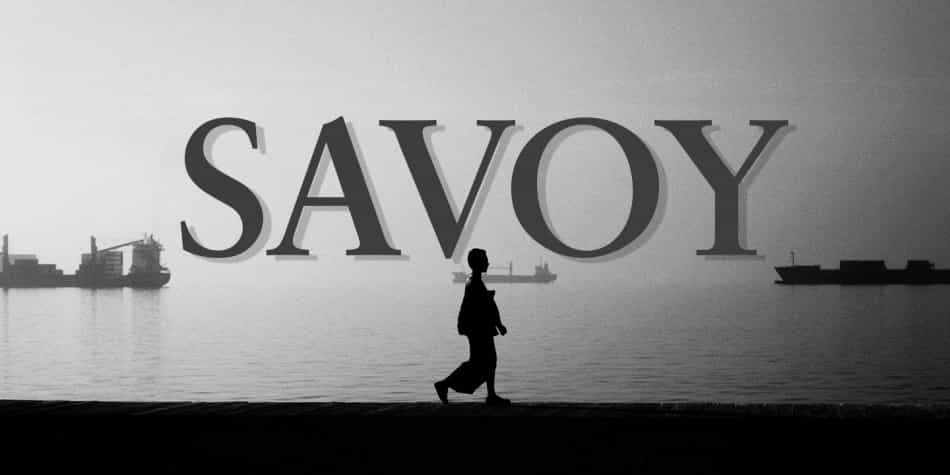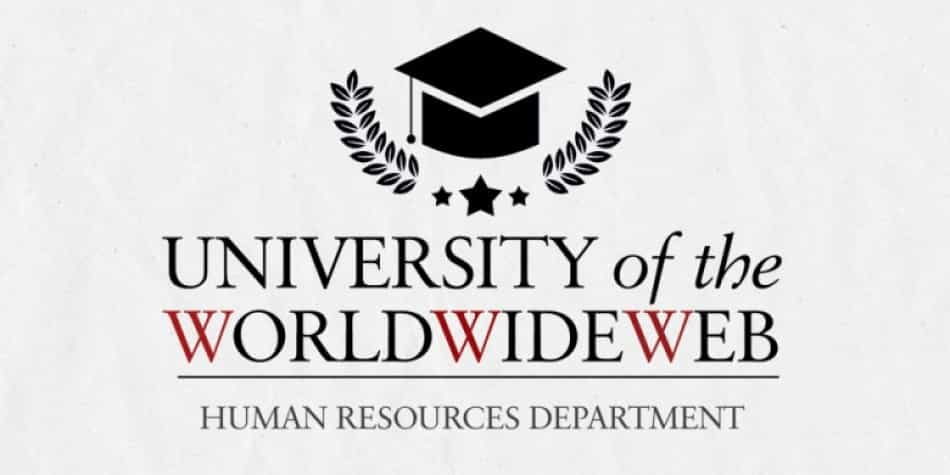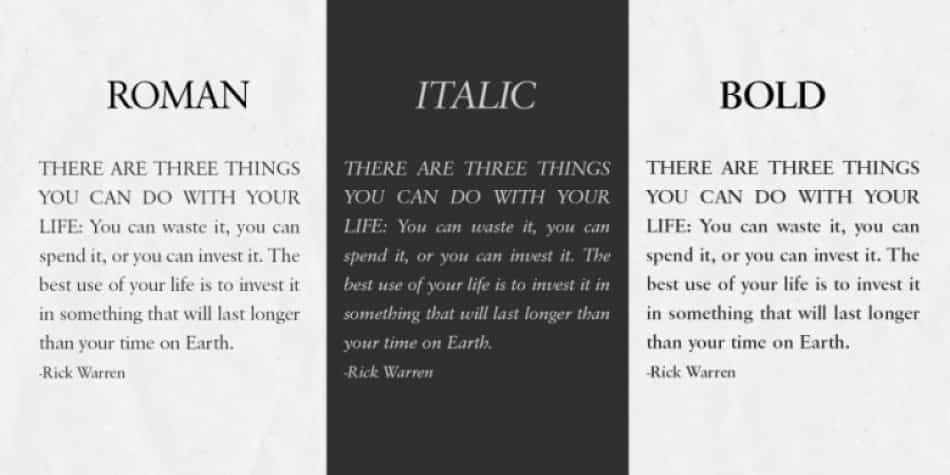
Savoyis an elegant modern serif font designed and published by FontSite Inc. It features five distinctive and well-known styles; Roman, Italic, Bold and Caps Bold fonts are included within its basic layout. Savoy font is an elegant and flexible font that works beautifully in both small and large sizes for any style of writing. There are various alternatives and binders available, which makes the font even more adaptable and captivating.